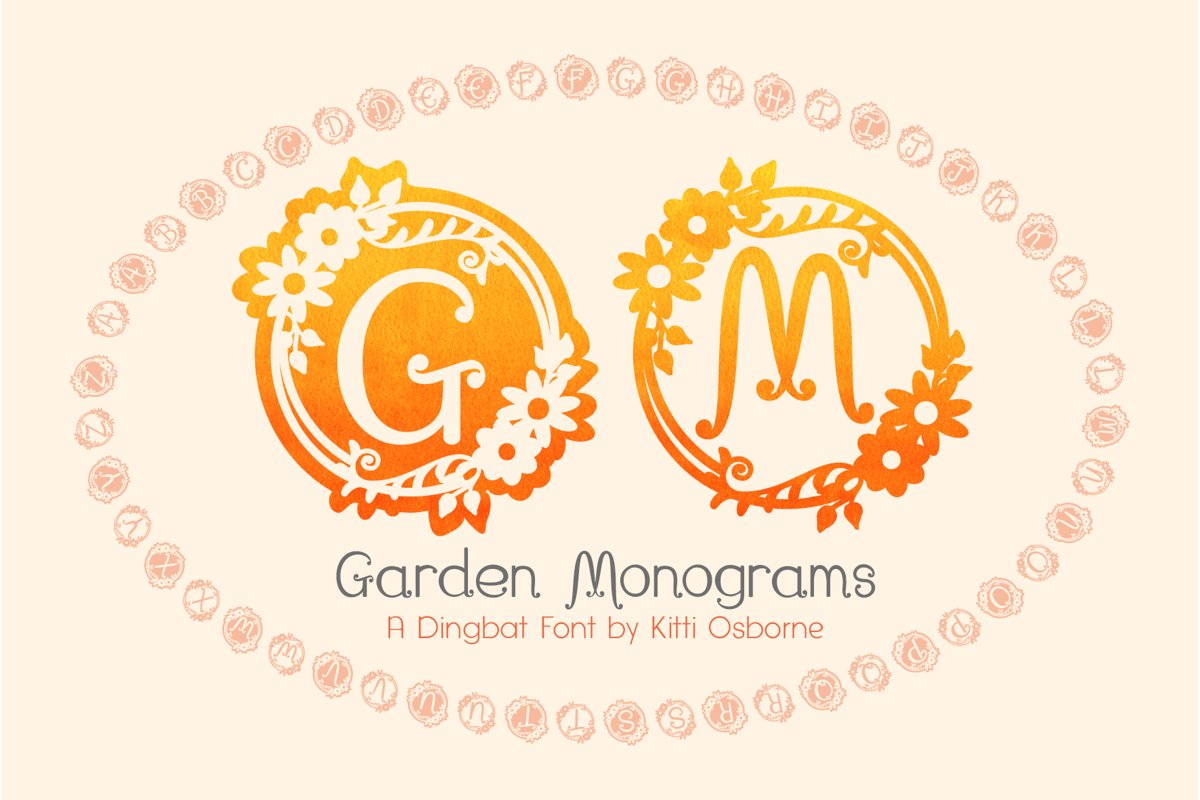
Garden Monograms - Font
Garden Monogram SVG Font is the latest addition to the Butterfly Garden family. Create cute monogram designs on everything from art prints to pillows
with this wreath monogram dingbat font. The font includes two versions, positive and negative, of the monograms designs, giving you versatility.